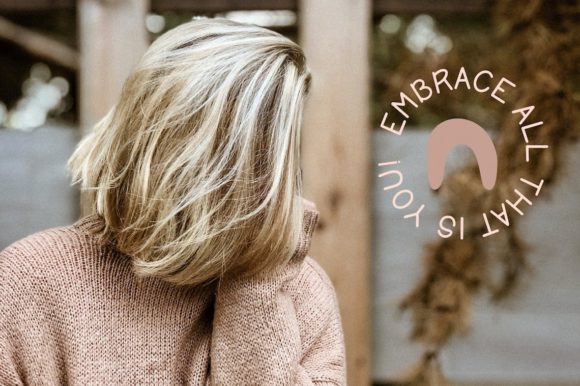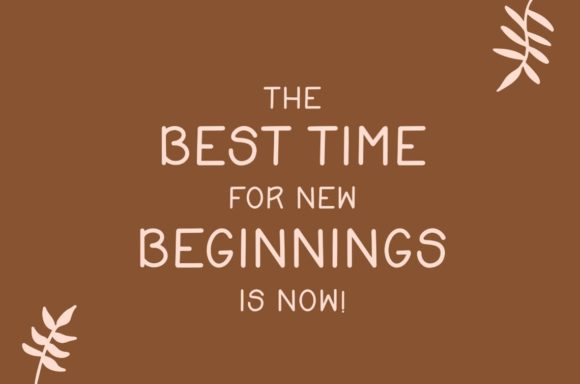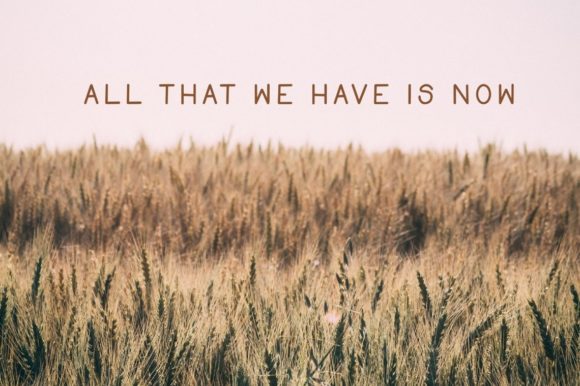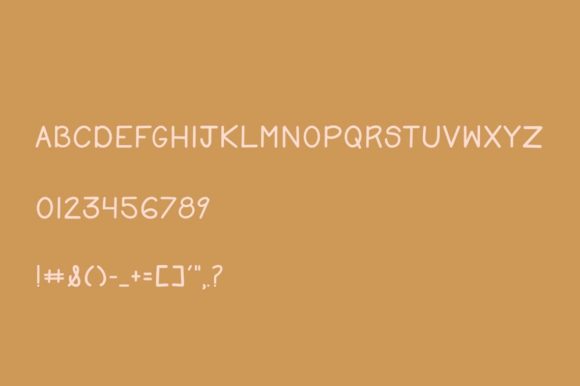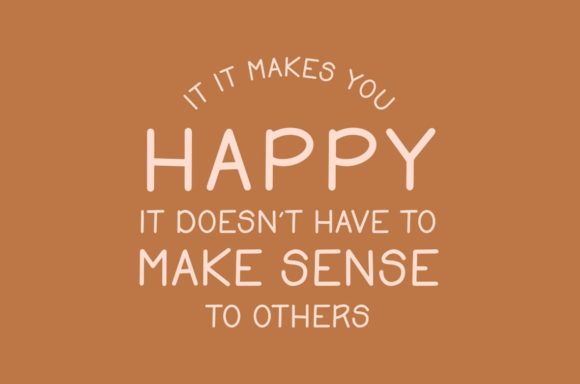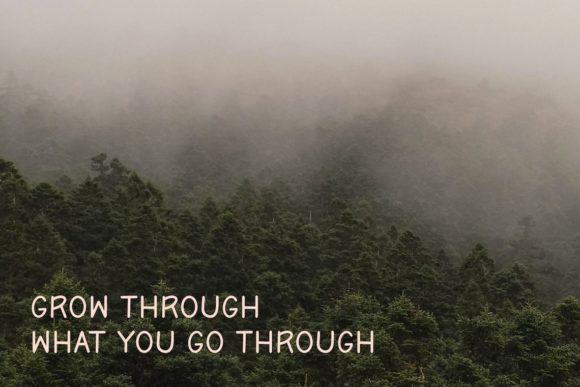
Introducing Elle Font: The Ultimate Sans Serif for Modern Designs
Are you a designer or crafter looking for a font that can elevate your visual creations to the next level? Look no further than Elle Font, a clean and modern sans serif font that’s perfect for a wide range of applications. In this article, we’ll explore the features and benefits of Elle Font, and show you how to make the most of its endless possibilities.
What is Elle Font?
Elle Font is a sleek and sophisticated sans serif font that’s designed to make a statement. Its clean lines, simple shapes, and elegant curves make it perfect for creating stunning posters, flyers, and prints. Whether you’re working on a branding project, a marketing campaign, or a personal craft, Elle Font is the perfect choice for adding a touch of modern style and sophistication.
Key Features of Elle Font
• Clean and Modern Design: Elle Font features a clean and modern sans serif design that’s perfect for creating visually appealing designs.
• Highly Versatile: Elle Font can be used for a wide range of applications, from posters and flyers to branding and marketing materials.
• Elegant Curves: The font’s elegant curves and simple shapes make it perfect for creating sophisticated and stylish designs.
• Easy to Read: Elle Font is highly legible, making it perfect for body text and headlines.
Benefits of Using Elle Font
So why choose Elle Font for your designs? Here are just a few benefits of using this amazing font:
• Instant Professionalism: Elle Font adds a touch of professionalism and sophistication to any design, making it perfect for businesses and individuals looking to create a strong brand identity.
• Flexibility: Elle Font can be used for a wide range of applications, from print materials to digital designs.
• Easy to Pair: Elle Font pairs well with a wide range of other fonts, making it easy to create stunning font combinations.
Endless Possibilities with Elle Font
So what can you create with Elle Font? The possibilities are endless! Here are a few ideas to get you started:
• Stunning Posters: Use Elle Font to create eye-catching posters that grab attention and communicate your message.
• Flyers and Brochures: Elle Font is perfect for creating professional-looking flyers and brochures that showcase your products or services.
• Branding and Marketing Materials: Use Elle Font to create a consistent brand identity across all your marketing materials, from business cards to letterheads.
• Digital Designs: Elle Font can be used for digital designs, such as website headers, social media graphics, and more.
Tips for Using Elle Font
Here are a few tips for getting the most out of Elle Font:
• Experiment with Font Sizes: Elle Font looks great in a wide range of font sizes, from small body text to large headlines.
• Play with Font Colors: Elle Font can be used in a wide range of colors, from bold and bright to subtle and muted.
• Pair with Other Fonts: Elle Font pairs well with a wide range of other fonts, so don’t be afraid to experiment with different font combinations.
Elle Font is a clean and modern sans serif font that’s perfect for designers and crafters looking to create stunning visual designs. With its elegant curves, simple shapes, and highly legible design, Elle Font is the perfect choice for a wide range of applications. Whether you’re working on a branding project, a marketing campaign, or a personal craft, Elle Font is the perfect font to add a touch of modern style and sophistication.